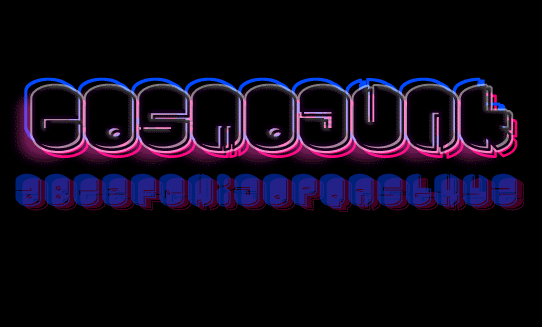
Cosmojunk
As promised, here is my remix of the font, Galaxy. Personally, I thinks it is a little harder to read than the original, but what do you expect when you remove the stars, add new circles, change the weight by 30 em units, copy, expand stroke at a normal pen width stroke of 25 em units with the round endcaps, then move it down and over 3 arrow clicks and paste the original over it, then remove the overlap?! Yeah, that's what I thought...hey at least its free, right?